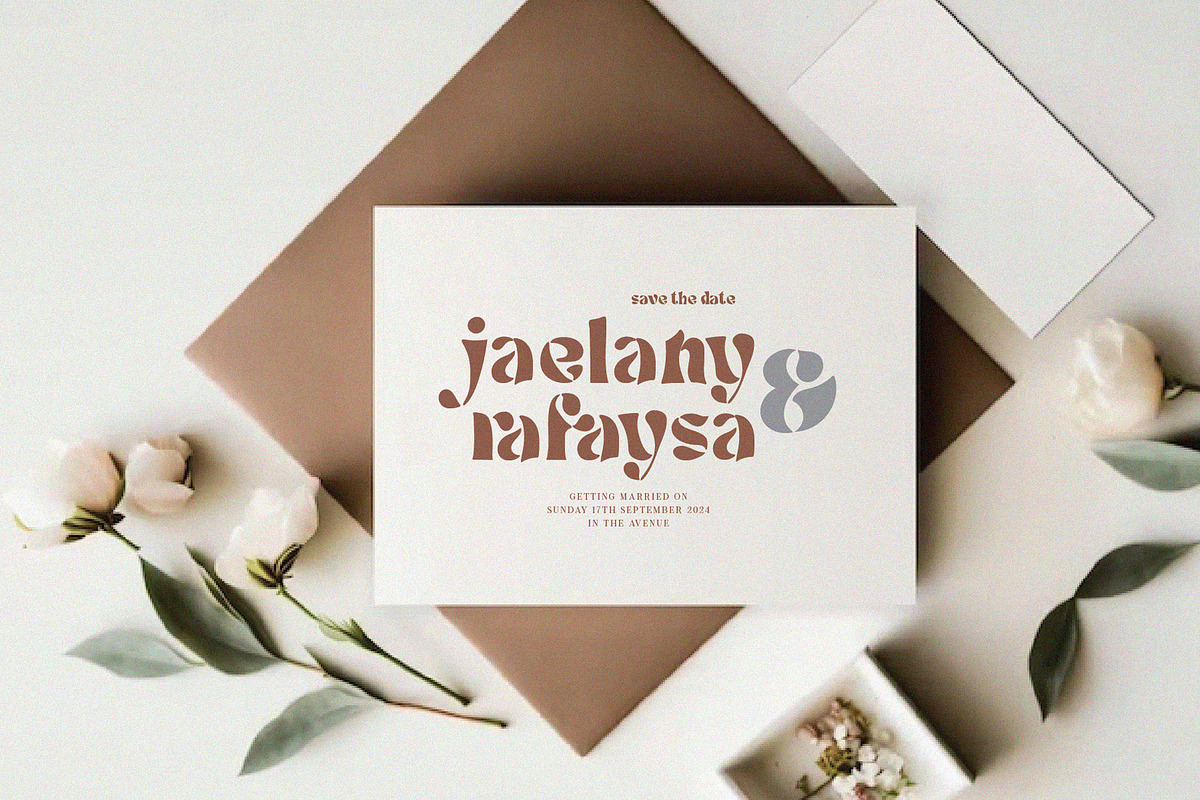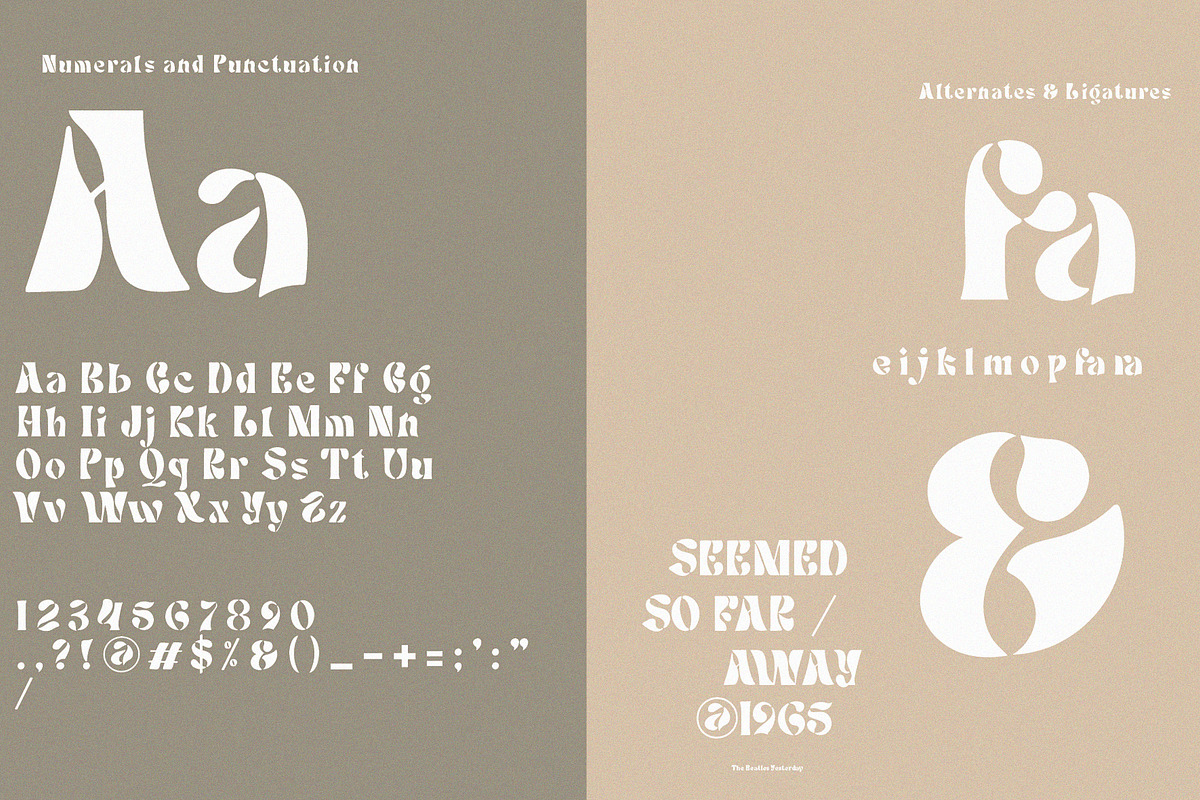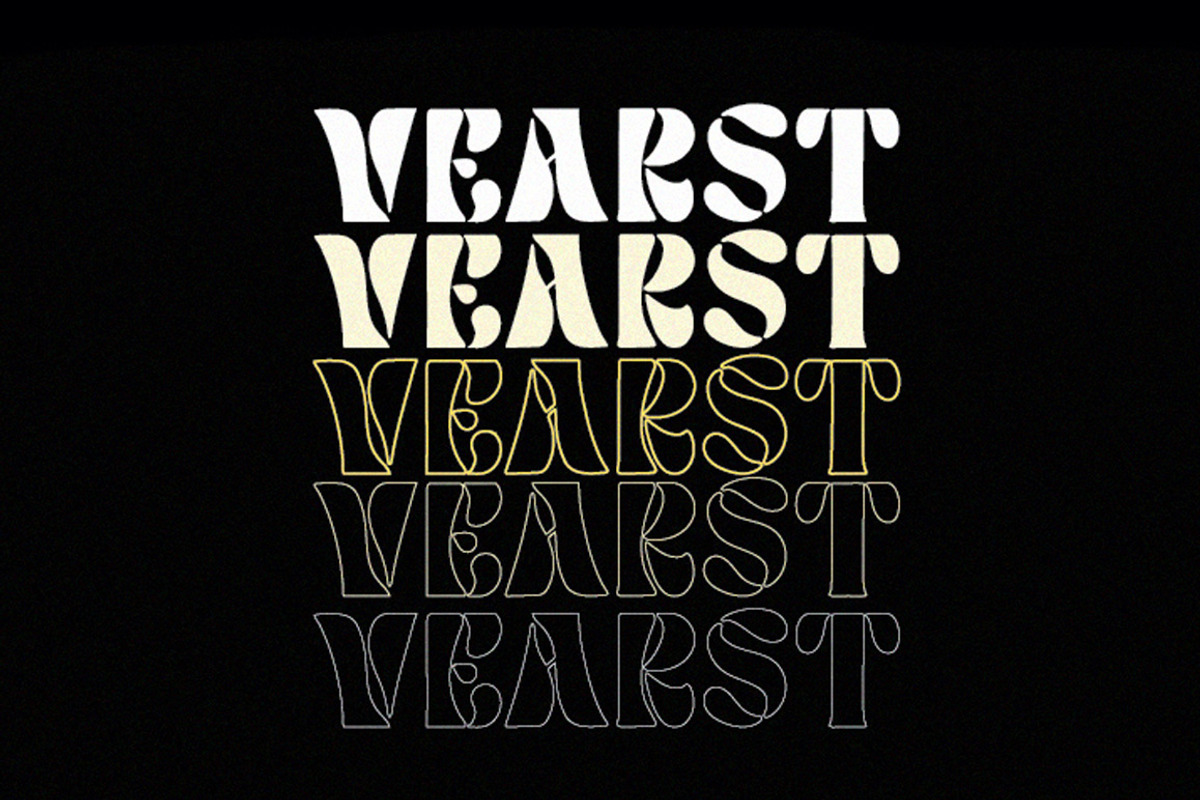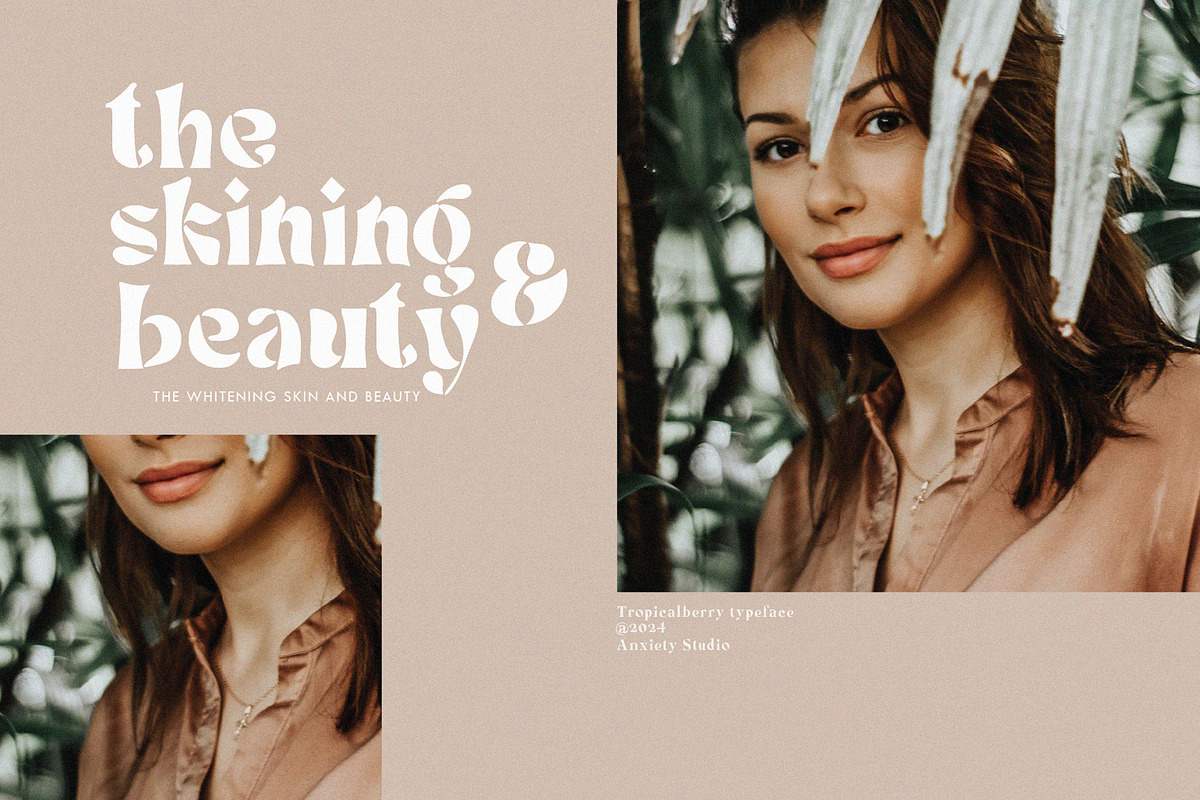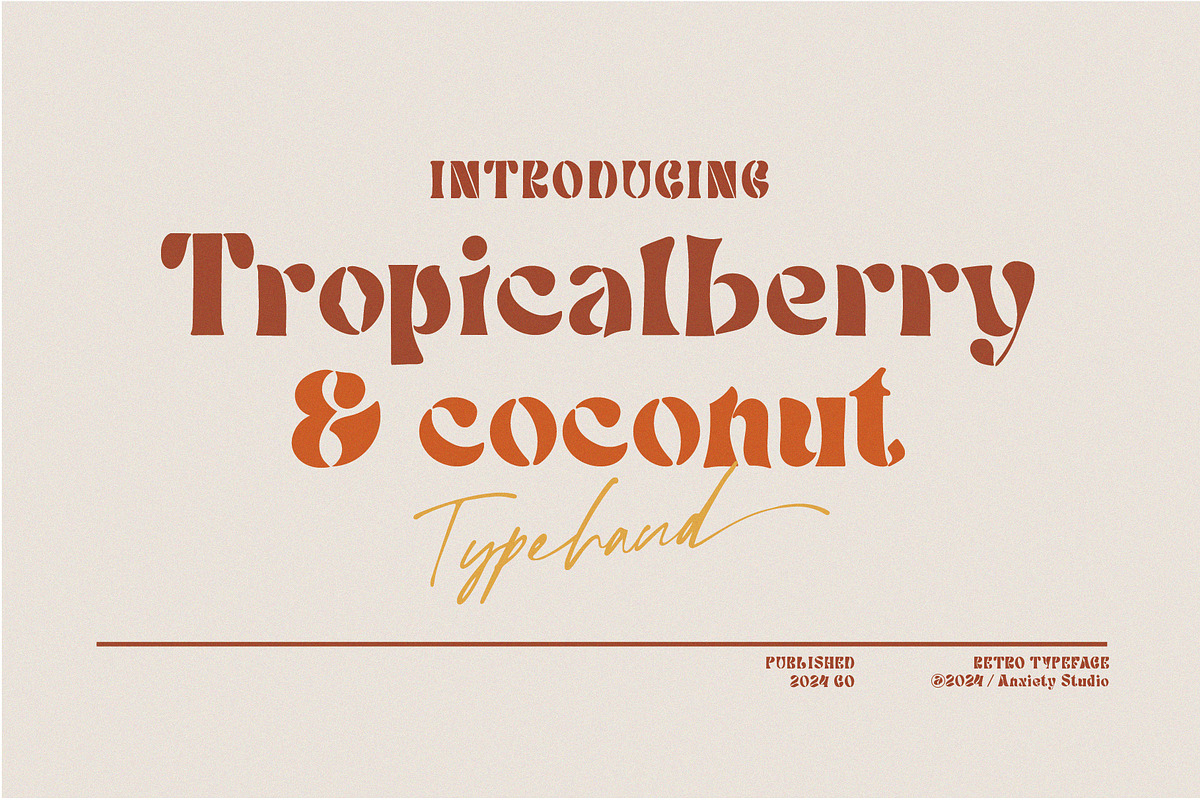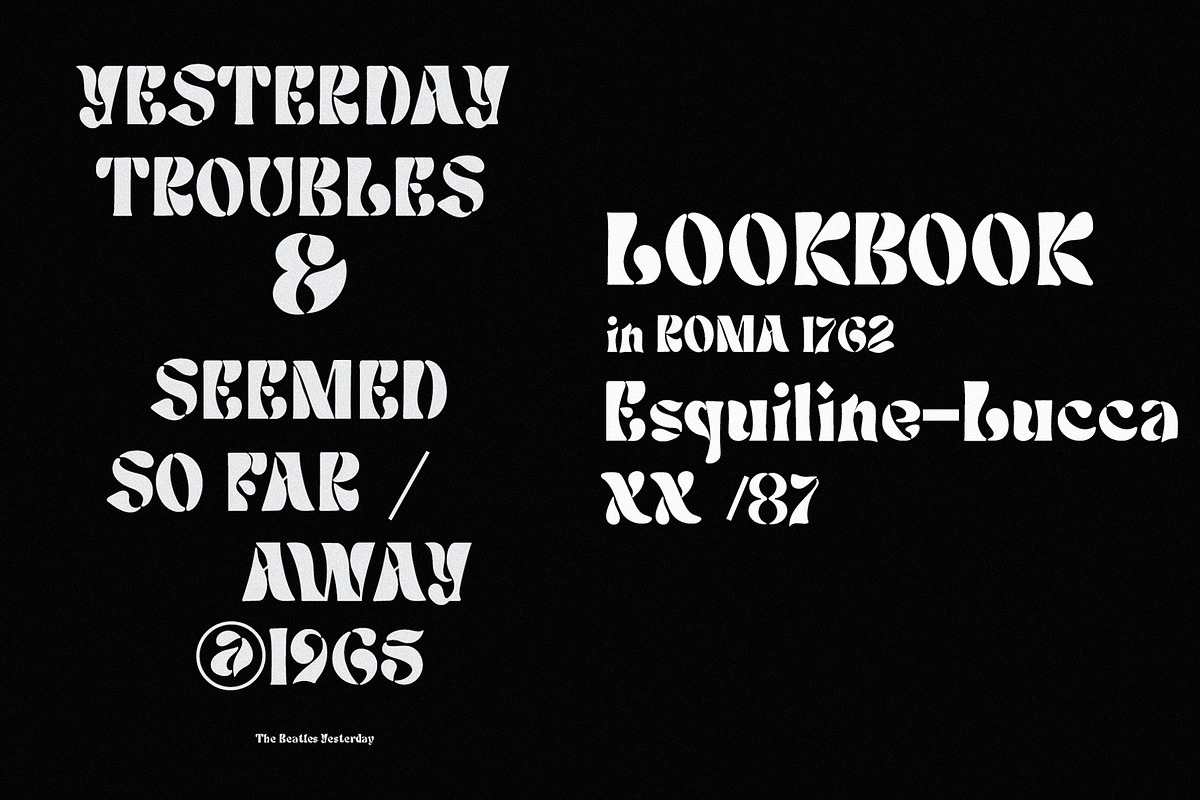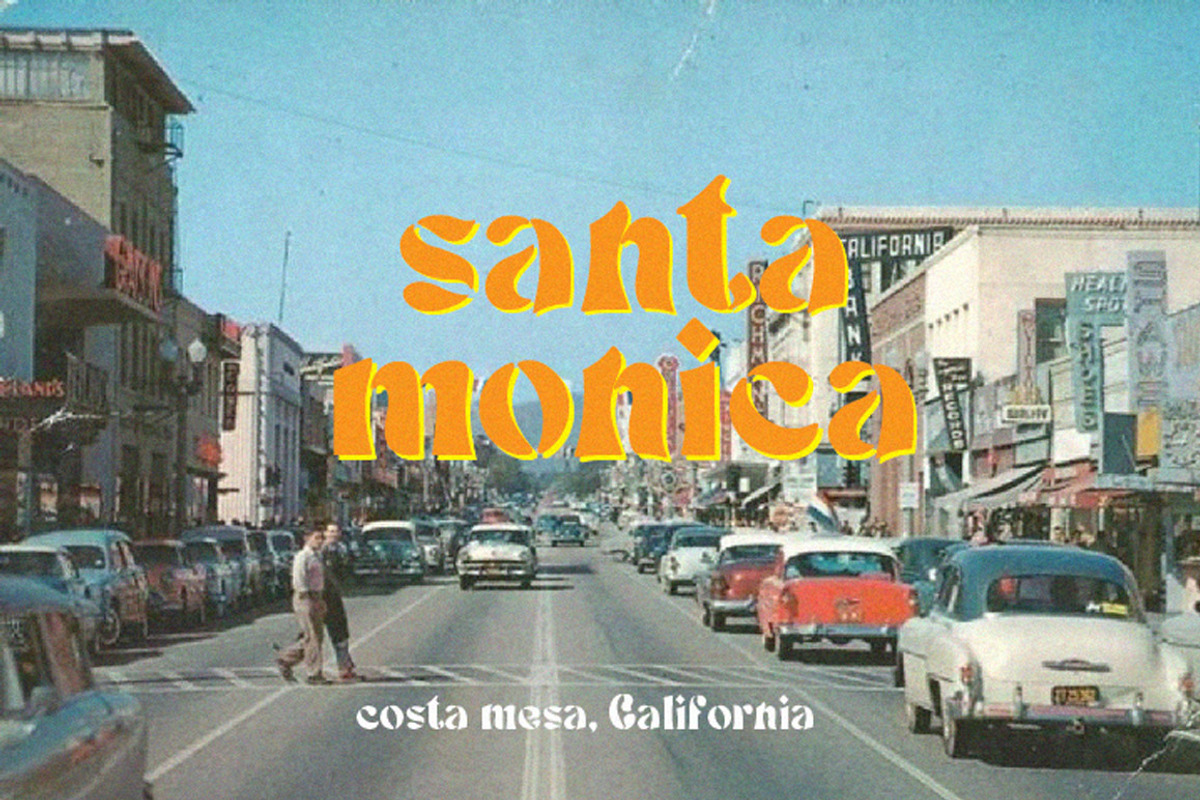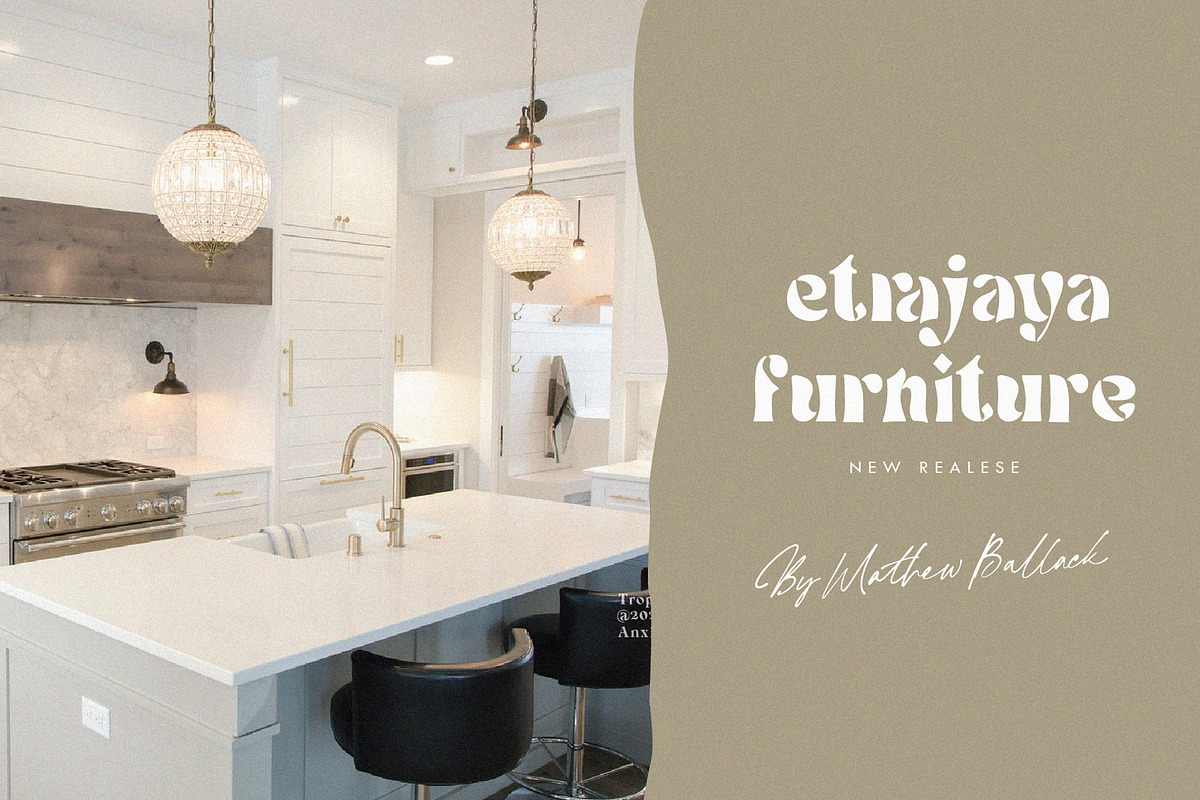
Tropicalberry - Retro Typeface
Tropicalberry is an elegant sans serif. Simple letterforms with attractive curves keep the letters in perfect balance. Created for use with an eye-catching display inspired by the rich ancient history and lineage of Italian type, in bold, very eccentric letters.